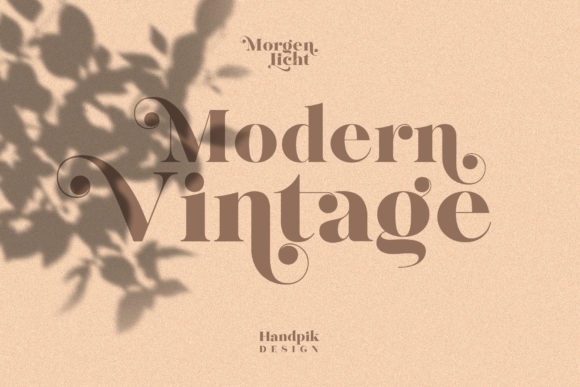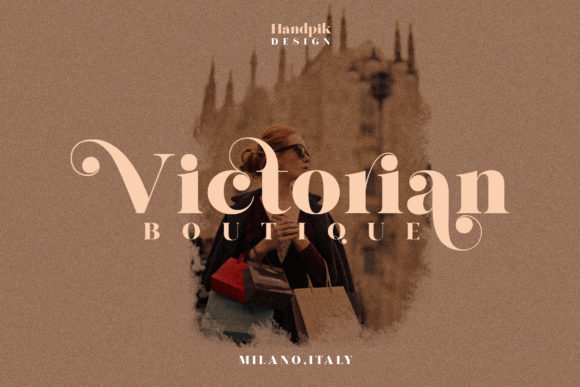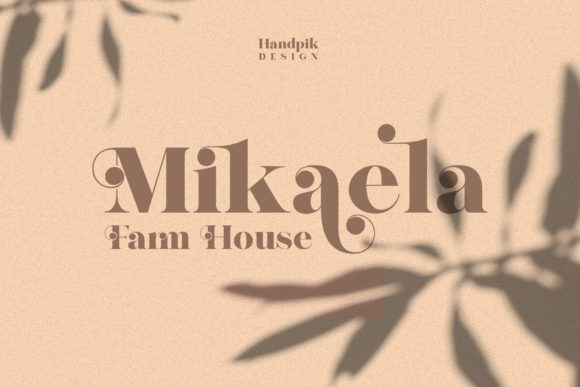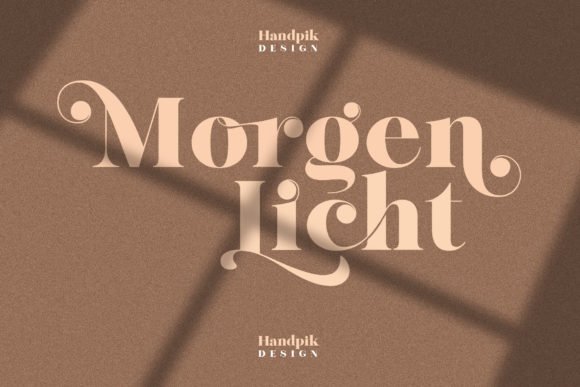
Introduction to Morgen Licht Font
Morgen Licht is a powerful and elegant serif font.
Distinct and modern, this font was masterfully designed to become a true favorite .
Key Features of Morgen Licht Font
Why Choose Morgen Licht Font?